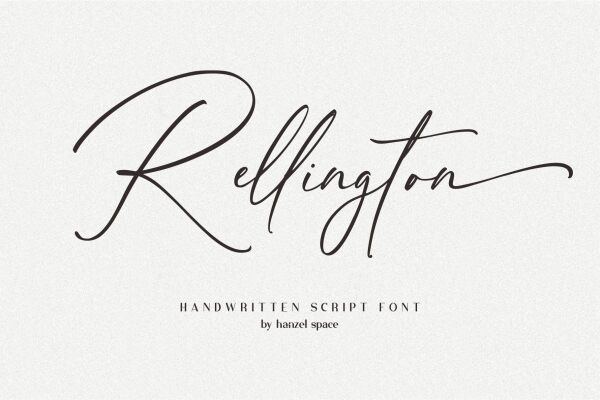
Rellington is a beautiful handwritten font by Hanief Farandi. Its perfect for adding a personal touch to any project, from wedding invitations to creative blog posts. It's also great for creating logos and badges with an artsy, unique feel.
A modern and stylish handcrafted signature font thatll make your audience swoon and enhance your projects. Every stroke and curve was created to capture the essence of modernity and style. This gorgeous and stylish font can be used for a host of different content needs and projects. Ideal for social media posts and ads, printed quotes, t-shirt designs, packaging, or even as a modern text overlay to any background image. Rellington Handwritten Font includes Multilingual Options to make your branding globally acceptable.
Standard Ligatures
Stylistic Sets
Numerals and Punctuation